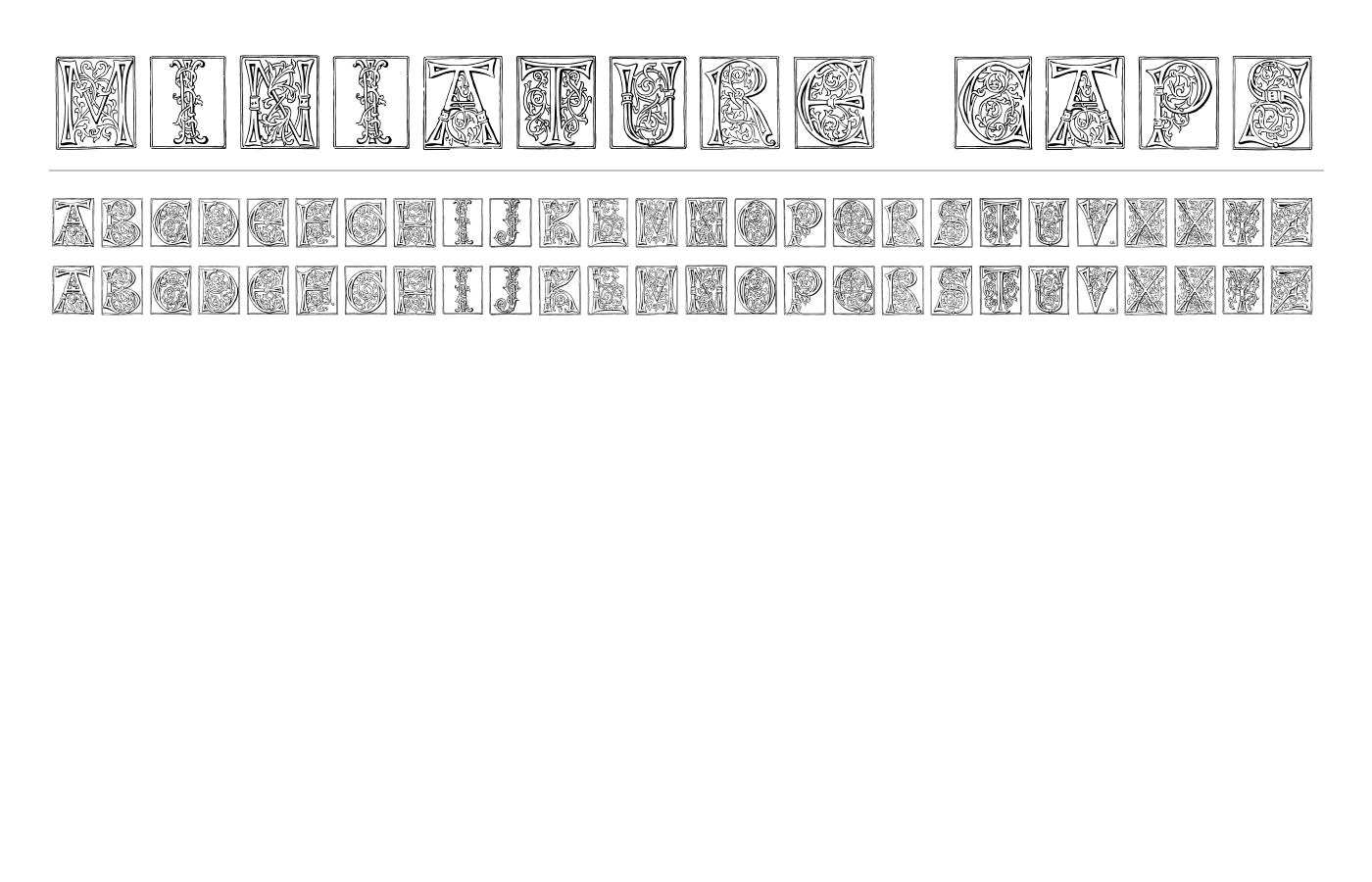
Miniature-Caps is an ornamental serif font featuring intricately detailed letterforms set within decorative rectangular frames, evoking a vintage, hand-crafted feel. Its elaborate design and compact structure make it ideal for attention-grabbing logos, decorative headlines, and artistic packaging where a historic or classical aesthetic is desired. This font excels in contexts that call for unique, sophisticated embellishment rather than body text, adding a touch of elegance and old-world charm.
Miniature-Caps Font
About Miniature-Caps Font